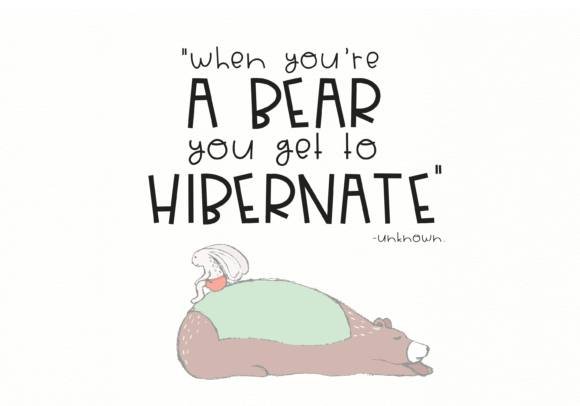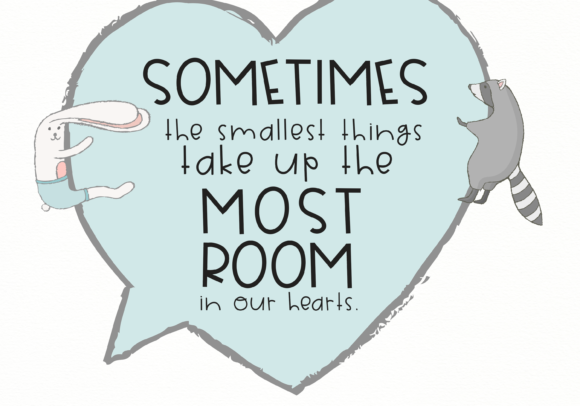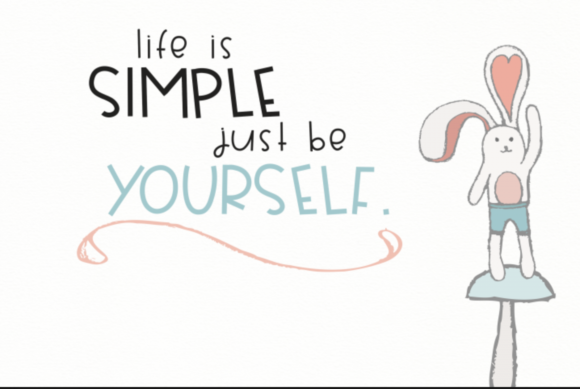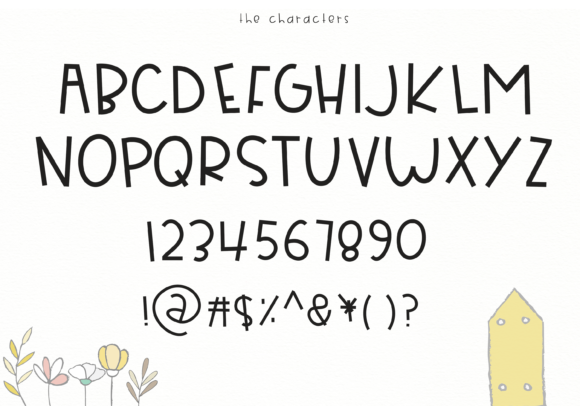
Bearly Awake Font: Add a Whimsical Twist to Your Design Projects
In the world of typography, fonts play a crucial role in making or breaking a design. A unique and charming font can elevate your design project from ordinary to extraordinary. If you’re a designer or crafter looking for a font that can add a touch of whimsy to your creations, look no further than Bearly Awake Font. In this article, we’ll explore the features and benefits of Bearly Awake Font and how it can inspire your next design project.
What is Bearly Awake Font?
Bearly Awake Font is a one-of-a-kind font that combines elegance with playfulness. Its light elements and whimsical twist make it perfect for designers and crafters who want to add a touch of personality to their designs. Whether you’re working on a logo, branding project, or social media graphic, Bearly Awake Font is sure to turn heads.
Key Features of Bearly Awake Font
- Unique and Charming: Bearly Awake Font boasts a distinctive style that sets it apart from other fonts. Its charm lies in its light and airy feel, making it perfect for designs that require a touch of elegance and sophistication.
- Whimsical Twist: The font’s whimsical twist adds a playful touch to any design project. Its quirky and fun elements make it ideal for designs that require a dash of personality.
- Light Elements: The font’s light elements give it a sense of airiness and elegance. This makes it perfect for designs that require a touch of sophistication and refinement.
- Versatile: Bearly Awake Font is a versatile font that can be used in a variety of design projects, from logos and branding to social media graphics and more.
Benefits of Using Bearly Awake Font
So, why should you choose Bearly Awake Font for your next design project? Here are just a few benefits of using this unique and charming font:
- Adds Personality to Your Designs: Bearly Awake Font adds a touch of personality to your designs, making them stand out from the crowd.
- Perfect for Branding: The font’s unique and charming style makes it perfect for branding projects that require a touch of elegance and sophistication.
- Easy to Read: Despite its whimsical twist, Bearly Awake Font is easy to read, making it perfect for designs that require a clear and concise message.
How to Use Bearly Awake Font in Your Design Projects
Using Bearly Awake Font in your design projects is easy. Here are a few tips to get you started:
- Pair it with Other Fonts: Pair Bearly Awake Font with other fonts to create a unique and eye-catching design.
- Experiment with Colors: Experiment with different colors to find the perfect combination that complements the font.
- Play with Sizes: Play with different font sizes to create visual interest and hierarchy in your design.
- Use it in Digital and Print Designs: Bearly Awake Font can be used in both digital and print designs, making it a versatile addition to your font collection.
| Font Name | Bearly Awake Font |
| Author | KA Designs |
In conclusion, Bearly Awake Font is a unique and charming font that can add a touch of whimsy to your design projects. Its light elements and whimsical twist make it perfect for designers and crafters who want to create eye-catching designs. With its versatility, ease of use, and range of benefits, Bearly Awake Font is a must-have font for any designer or crafter looking to elevate their designs.
Get Inspired with Bearly Awake Font